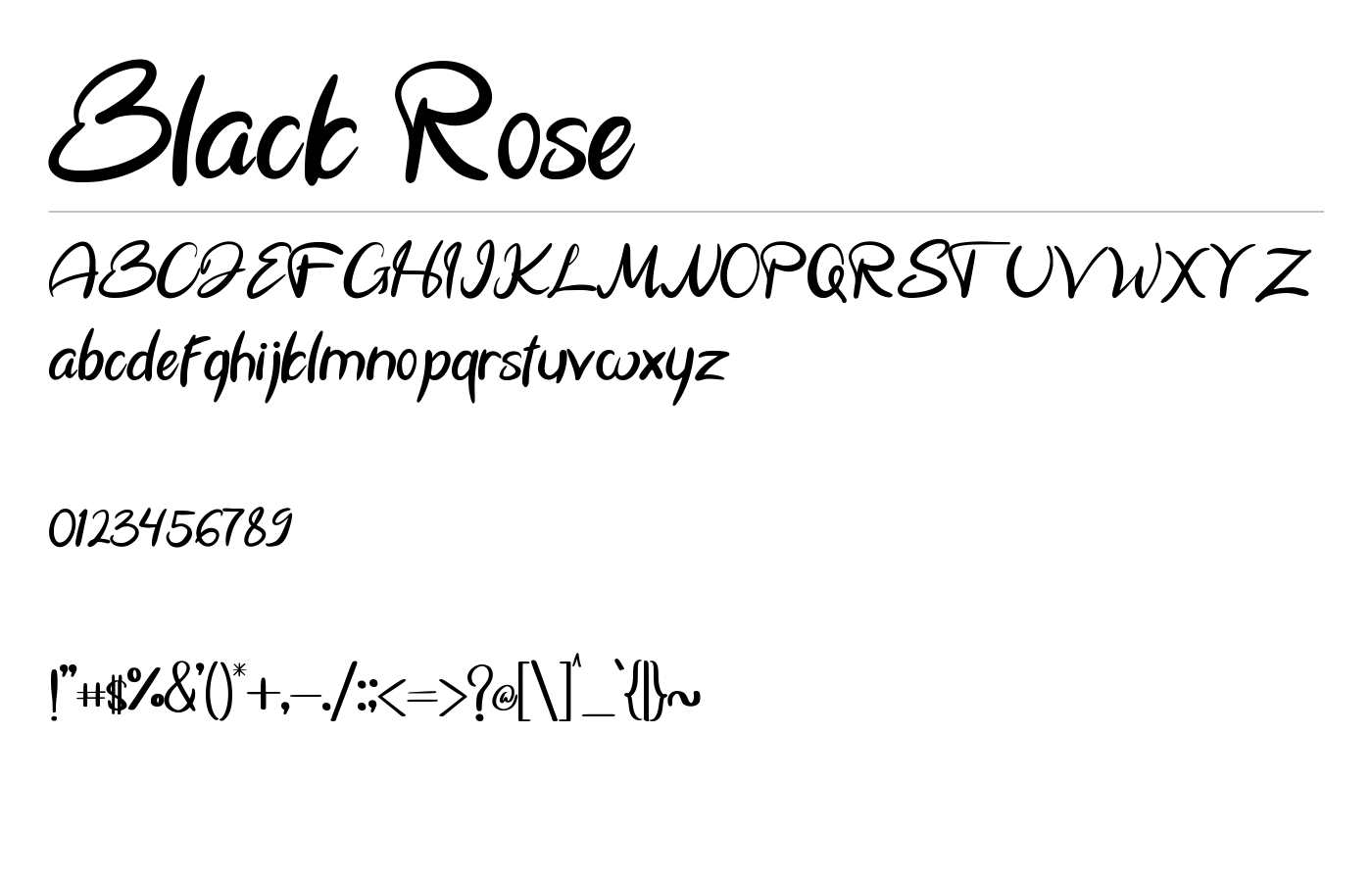
Black Rose is a playful and elegant script font with a casual, handwritten feel. Its smooth, flowing strokes and varying thicknesses create a lively yet refined appearance, making it ideal for creative branding, invitations, and feminine or artistic designs. This font works best in headlines and logos where personality and charm are key.
Black Rose Font
About Black Rose Font